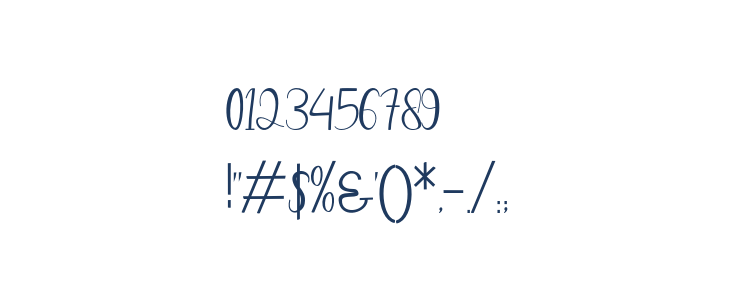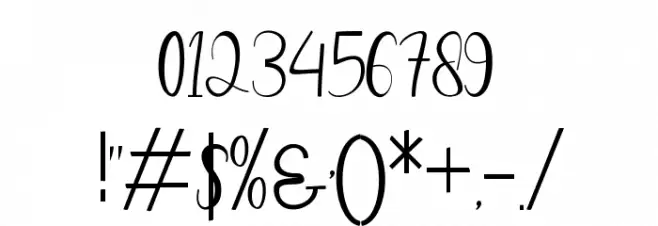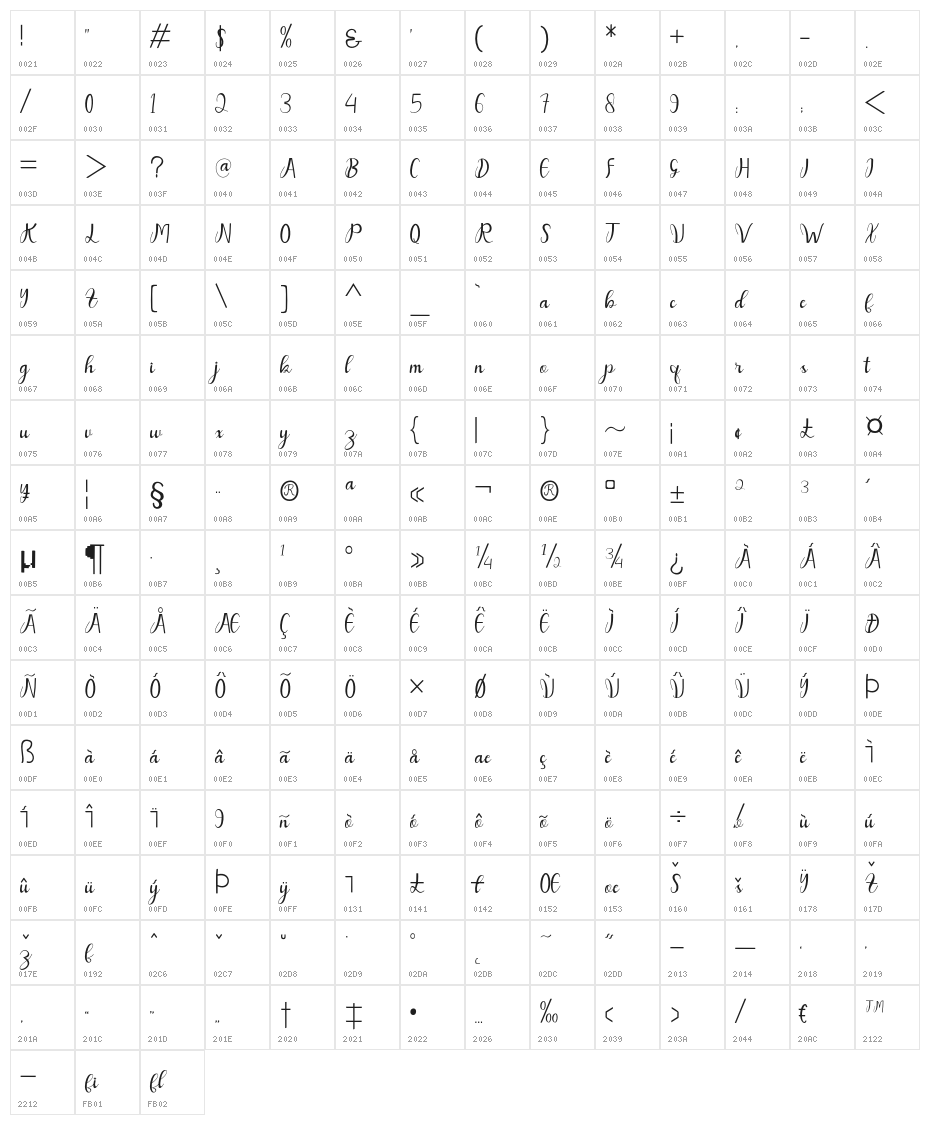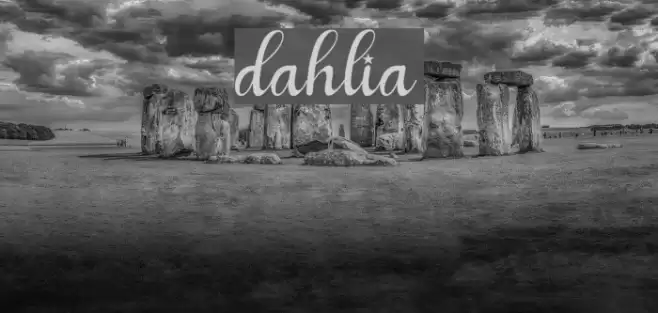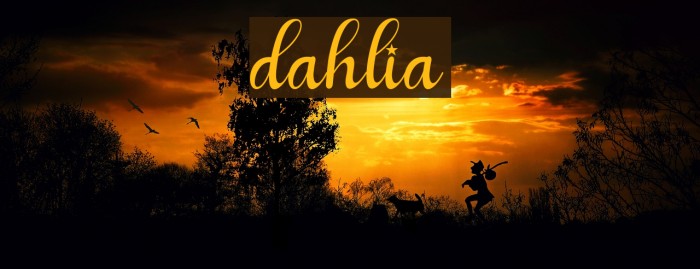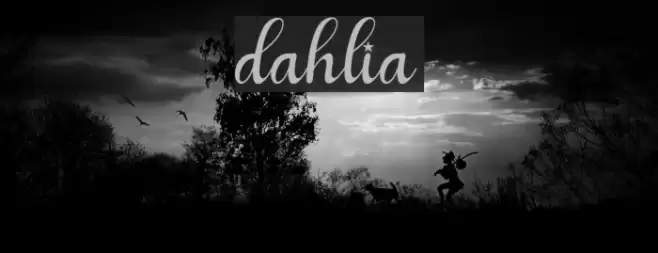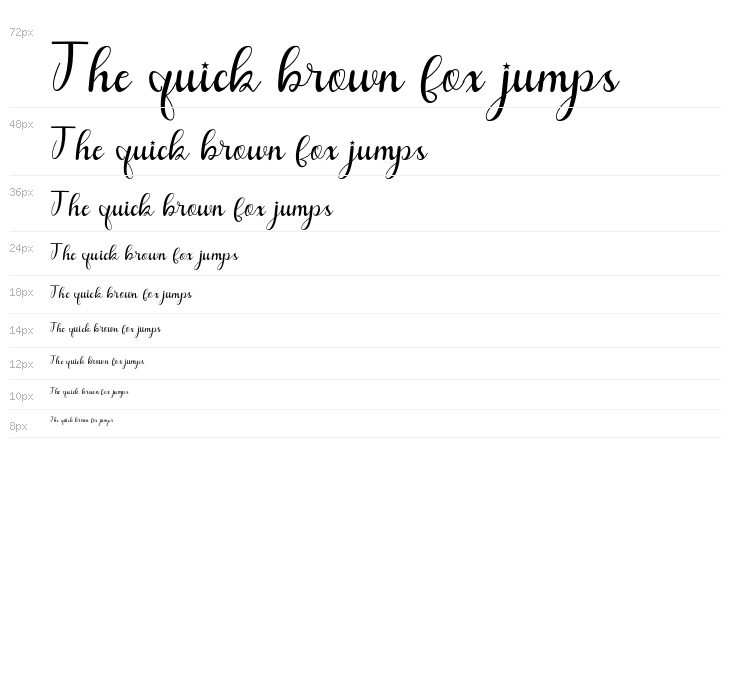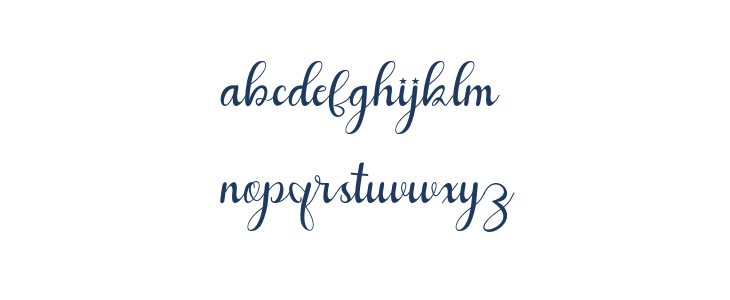
dahlia Font
dahlia Description
This font features an elegant and flowing script style, characterized by its smooth, cursive strokes and graceful curves. The uppercase letters exhibit a sophisticated flair with elongated ascenders and descenders, creating a sense of movement and fluidity. The lowercase letters maintain a consistent style, complementing the uppercase with their rounded forms and gentle loops. Numbers and special characters are designed with the same attention to detail, ensuring a harmonious appearance across all glyphs. The overall aesthetic is both refined and artistic, making it suitable for projects that require a touch of elegance and creativity.
| Proposed Projects | Ideal for wedding invitations, elegant branding, greeting cards, and artistic projects. |